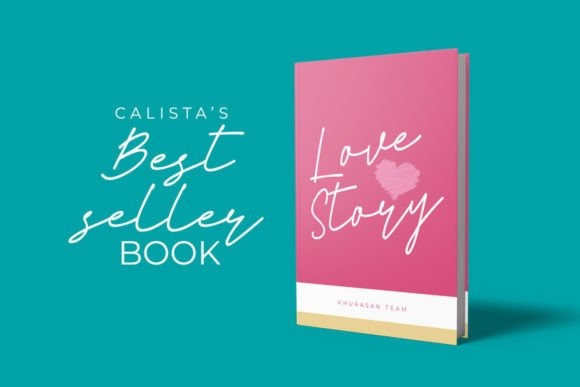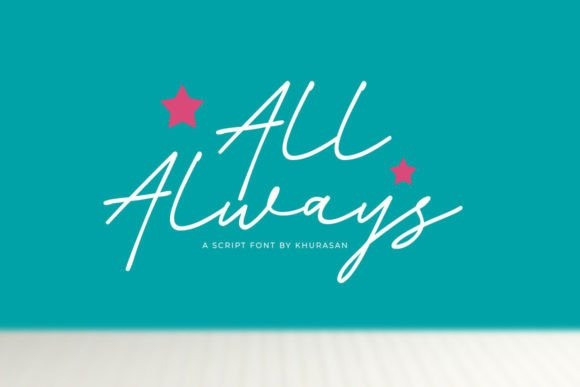
All Always Font
All Always Font is a clean, stylish and elegant script font perfect for posters, logos, magazines, book covers, banners, and many more! Get this amazing font, and use it to create lovely designs.